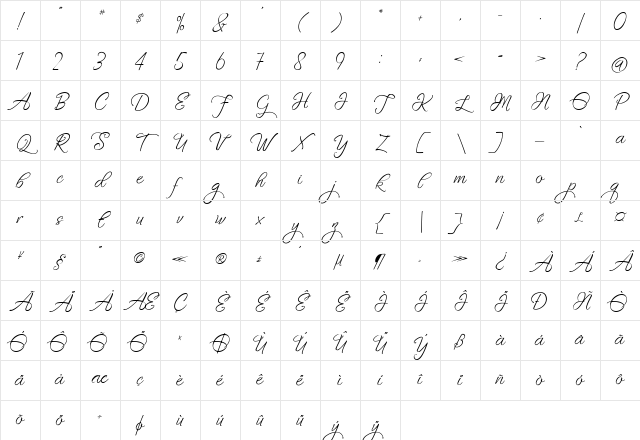
Fascinating Celestina Regular
Foundry: Cataleya Butcher
Designer: CAT.B
Design Context for Fascinating Celestina
Fascinating Celestina is a composed and adaptable typeface that performs quietly and consistently across a wide range of design contexts.